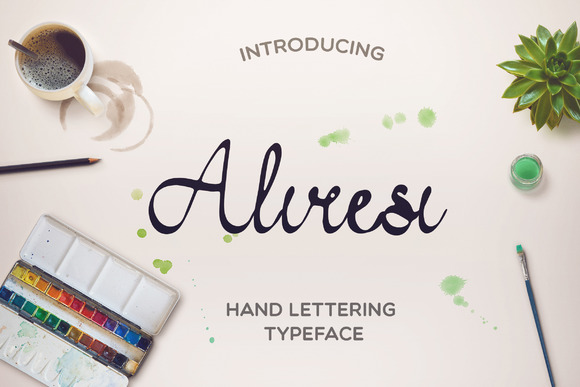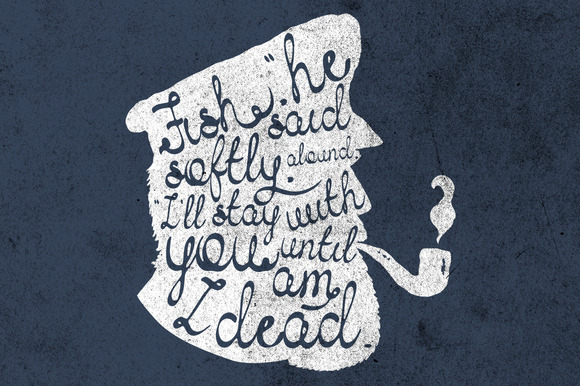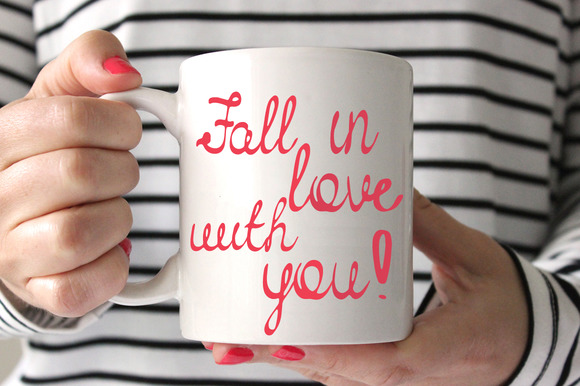
Aliresi Font
About Aliresi Font
Aliresi is a beautiful hand lettering typeface that can be used for various purposes such as headings, logos, wedding invitations, t-shirts, letterheads, signages, labels, news, posters, badges, and much more.